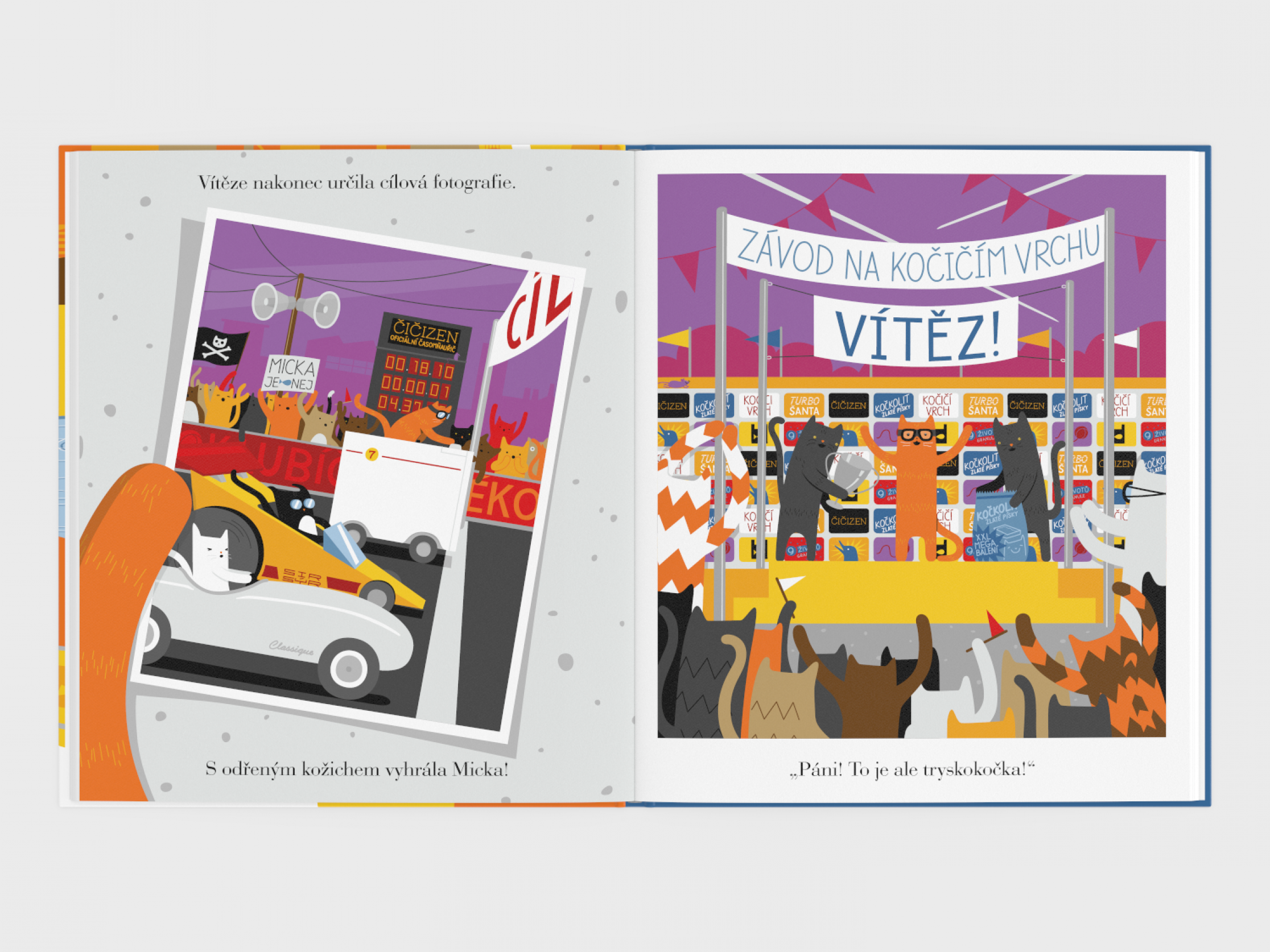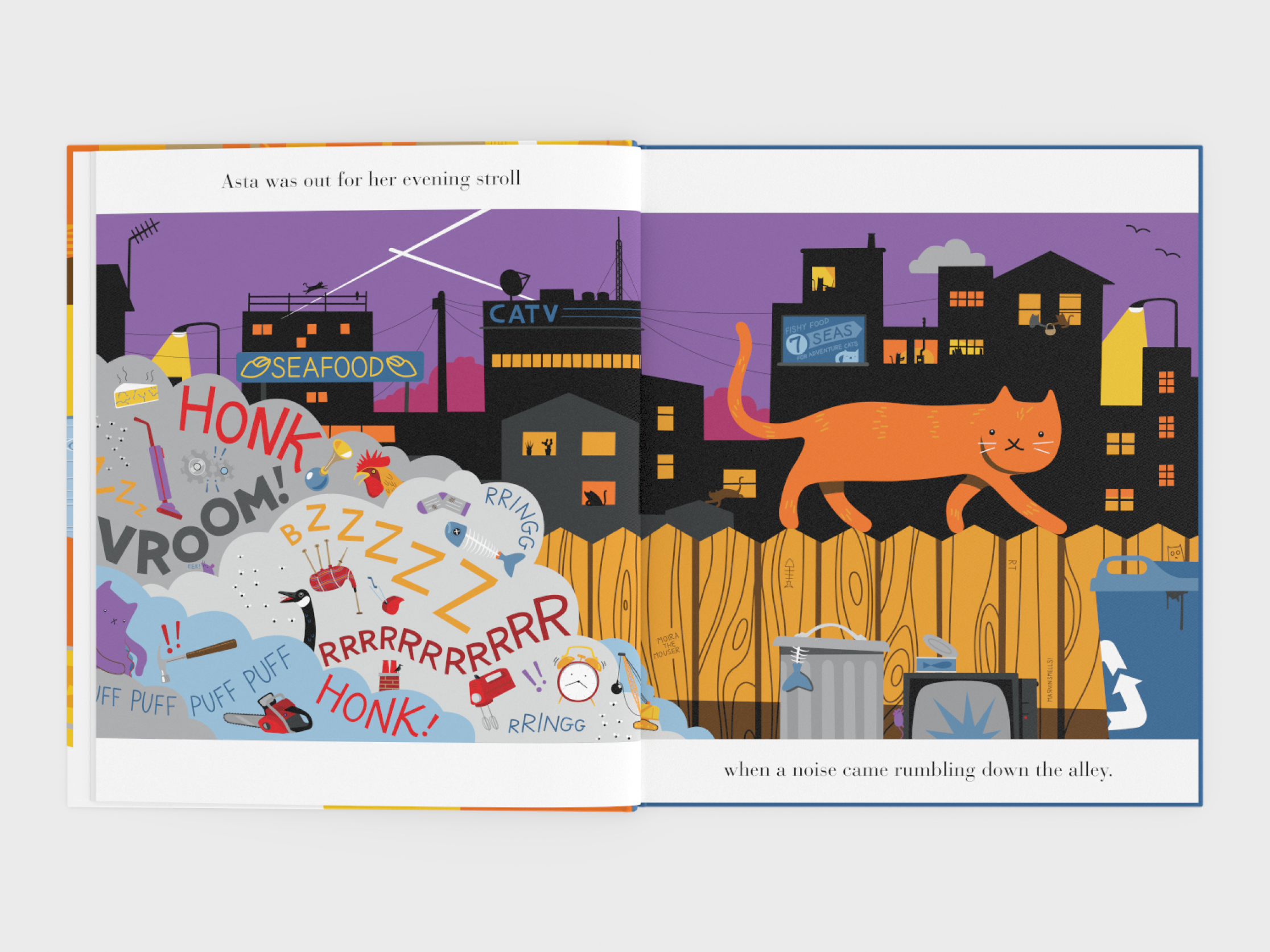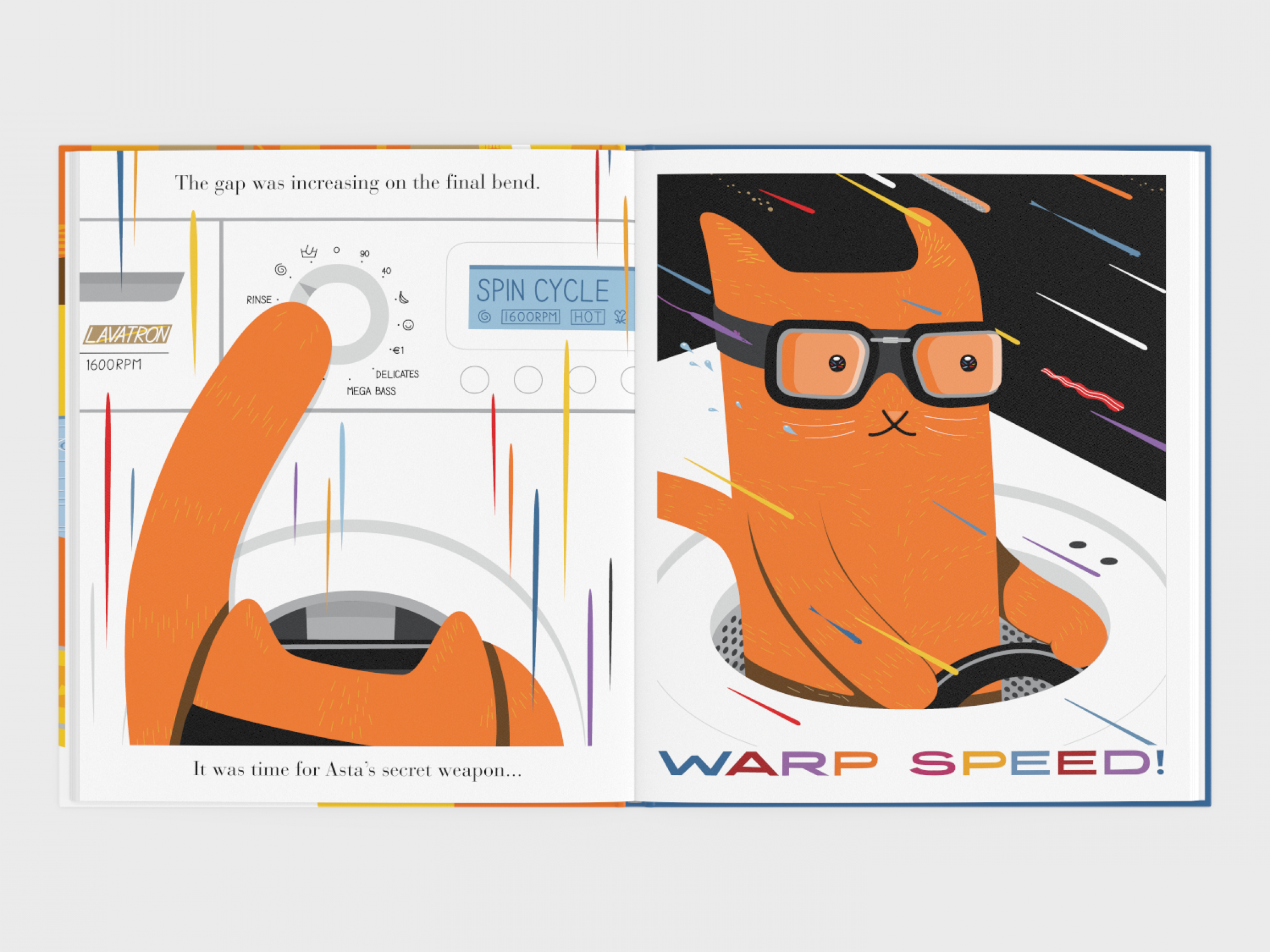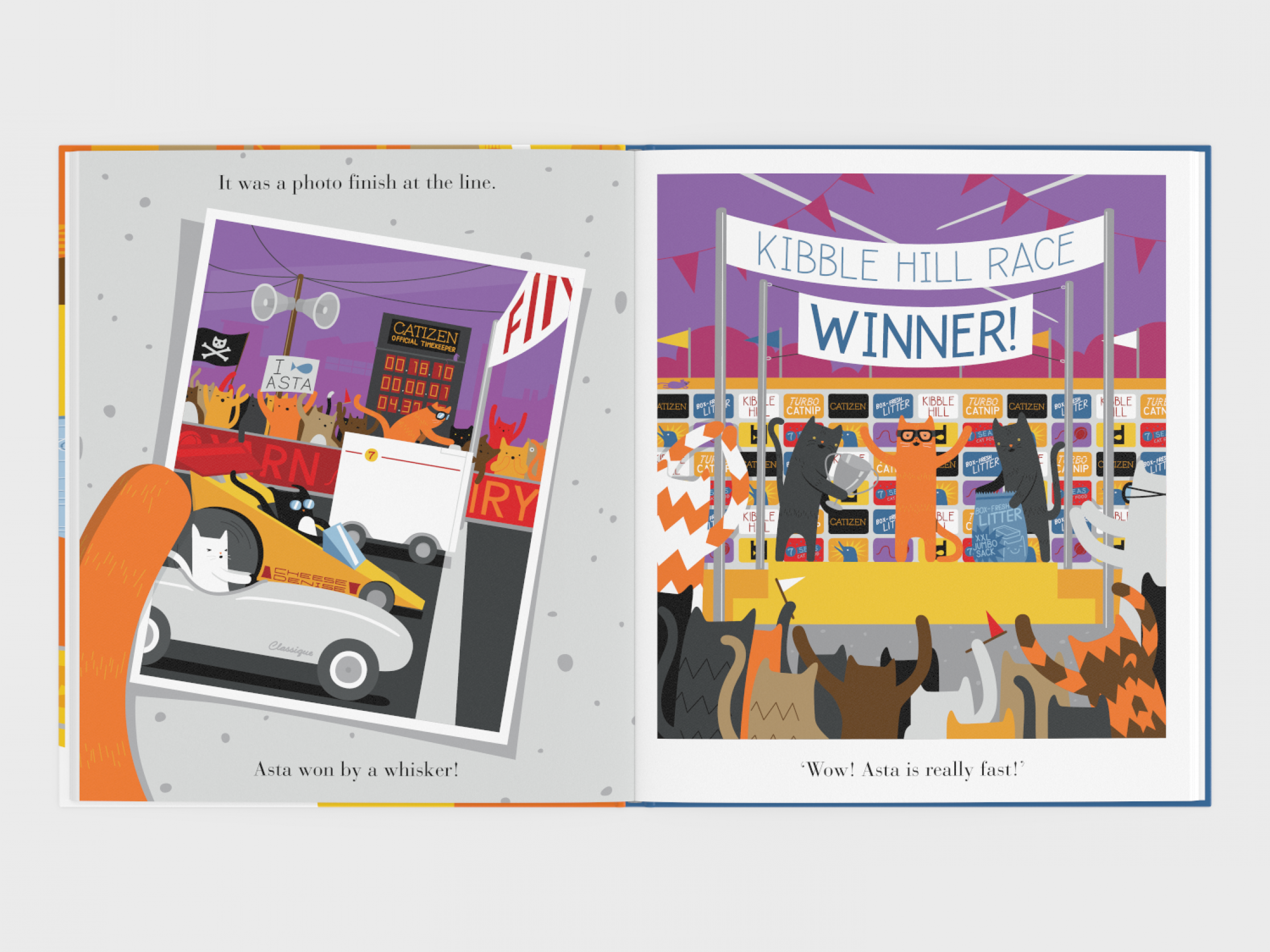
Alley Cat Rally
The illustrated book Alley Cat Rally by the young British artist Ricky Trickartt has been published by Paseka. The Czech version is a faithful adaptation of the original, as it preserves the original style of the complex lettering down to the last detail.